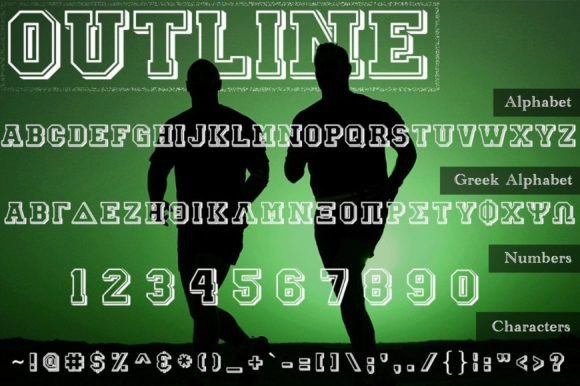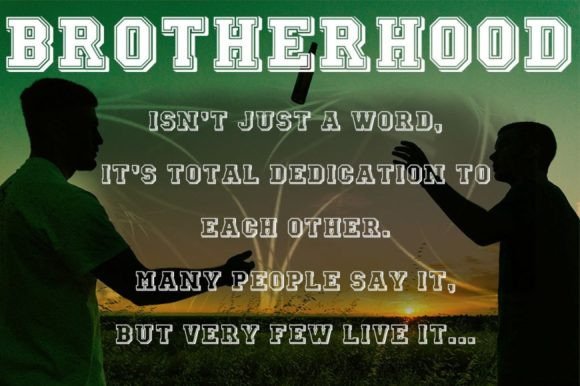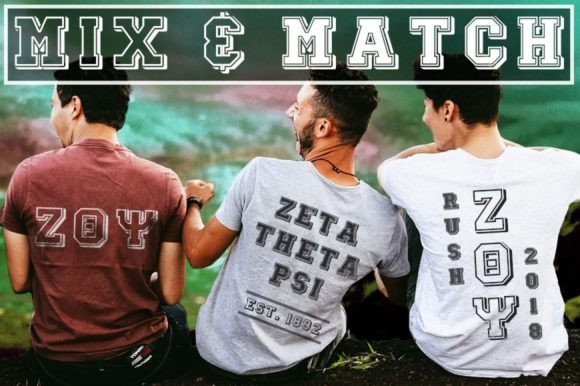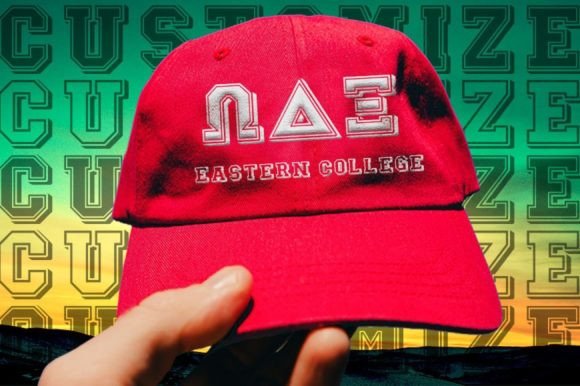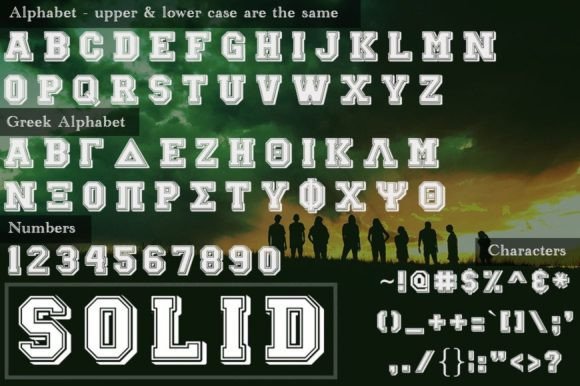
Introducing Brotherhood Font: Elevate Your Creativity with this Unique Display Font
Are you tired of using the same old fonts for your creative projects? Look no further! Brotherhood Font is here to revolutionize the way you express yourself. This incredibly unique display font is masterfully designed to become a true favorite among designers and crafters. With Brotherhood Font, you can bring each of your creative ideas to the highest level and make a lasting impression on your audience.
What Makes Brotherhood Font So Special?
Brotherhood Font is not just another font – it’s an experience. Its unique design and exceptional craftsmanship set it apart from other fonts in the market. Here are some features that make Brotherhood Font a standout:
- Unique Character Set: Brotherhood Font boasts an extensive character set that includes uppercase and lowercase letters, numbers, and special characters. This ensures that you have a wide range of options to play with and can create complex designs with ease.
- Exceptional Legibility: Despite its unique design, Brotherhood Font remains highly legible, making it perfect for use in a variety of applications, from headings and titles to logos and branding.
- Highly Versatile: Brotherhood Font is incredibly versatile and can be used in a range of contexts, from digital designs to print materials. Whether you’re working on a website, social media graphics, or business cards, this font is sure to impress.
Why Designers and Crafters Love Brotherhood Font
Brotherhood Font has quickly become a favorite among designers and crafters, and for good reason. Here are just a few reasons why:
- Time-Saving: With Brotherhood Font, you can create stunning designs in a fraction of the time it would take with other fonts. Its unique design and exceptional legibility make it perfect for quick and easy designs.
- Professional Results: Despite its ease of use, Brotherhood Font delivers professional-grade results that are sure to impress even the most discerning clients.
- Endless Inspiration: Brotherhood Font is a font that inspires creativity and sparks new ideas. Its unique design and versatility make it the perfect tool for brainstorming and exploring new concepts.
| Font Name | Brotherhood Font |
| Author | phelans-fontastic-ventures |
In conclusion, Brotherhood Font is an incredibly unique display font that has the potential to elevate your creative ideas to new heights. With its exceptional design, versatility, and ease of use, it’s no wonder that this font has quickly become a favorite among designers and crafters. Whether you’re working on a graphic design project, website, or social media graphic, Brotherhood Font is sure to make a lasting impression on your audience.